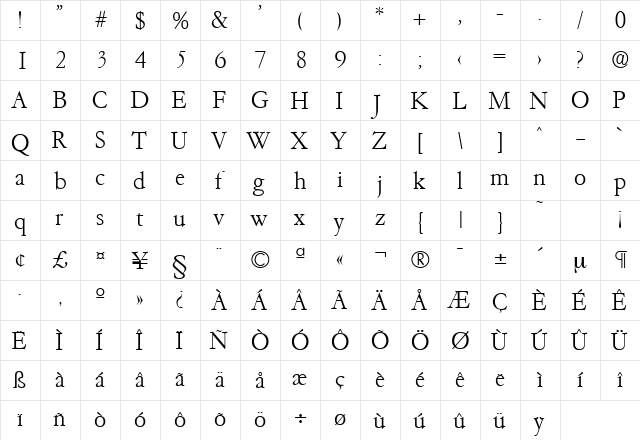
Garamond-Serial-ExtraLight Regular
Design Context for Garamond-Serial-ExtraLight Typeface
Garamond-Serial-ExtraLight is a composed and adaptable typeface that performs quietly and consistently across a wide range of design contexts. Its slender proportions lend an understated elegance to any composition.